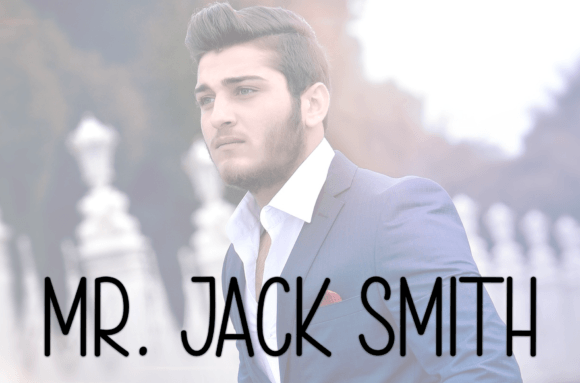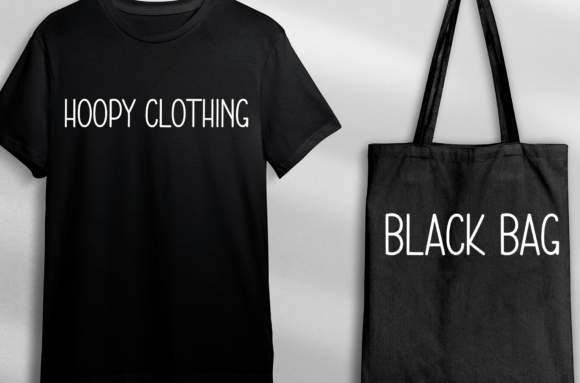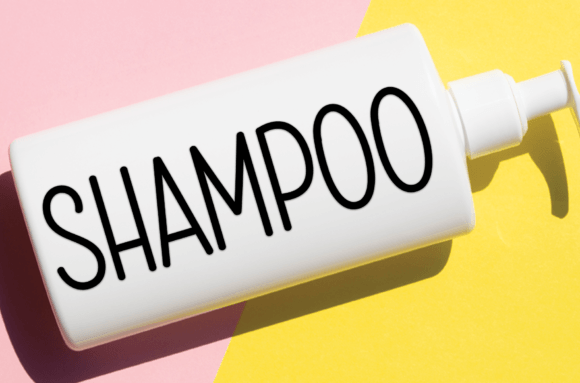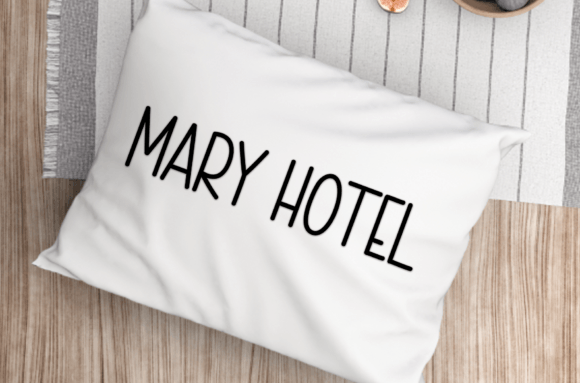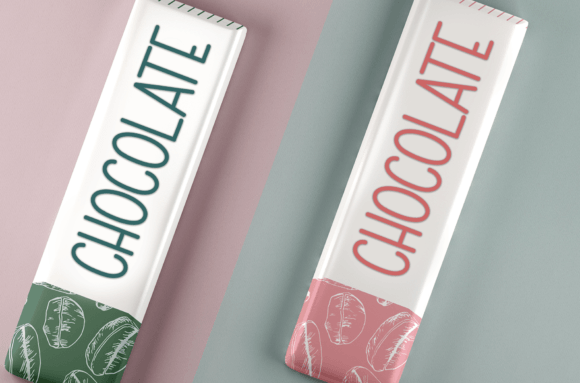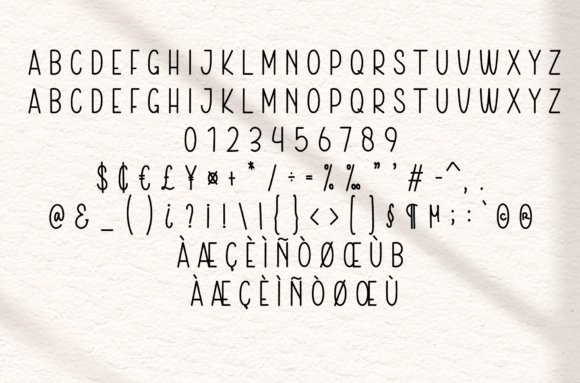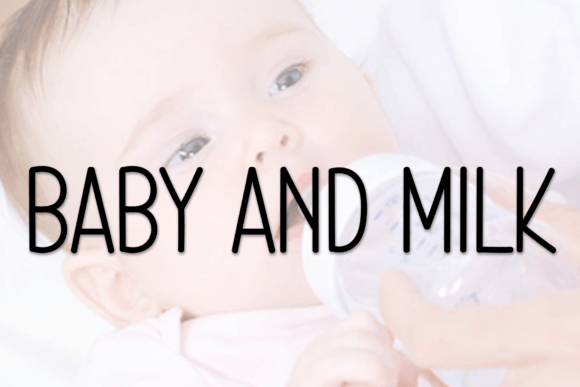
Baby and Milk Font: The Sweetest Addition to Your Design Arsenal
Are you a designer or crafter looking for a font that can add a touch of sweetness and friendliness to your designs? Look no further than the Baby and Milk Font! This adorable handwritten font is perfect for creating wedding invitations, cards, and other designs that require a fun and creative twist.
What Makes Baby and Milk Font So Special?
Baby and Milk is a sweet and friendly handwritten font that is sure to capture the hearts of your audience. Its cute and creative design makes it ideal for a wide range of design projects, from wedding invitations and cards to posters, flyers, and more. The font’s playful and whimsical feel is perfect for adding a personal touch to your designs and making them stand out from the crowd.
Characteristics of Baby and Milk Font
So, what makes Baby and Milk Font so unique? Here are some of its key characteristics:
- Handwritten design: Baby and Milk Font is a handwritten font, which gives it a personal and intimate feel.
- Sweet and friendly: The font’s design is sweet and friendly, making it perfect for creating designs that require a touch of warmth and personality.
- Cute and creative: The font’s cute and creative design makes it ideal for designs that require a fun and playful twist.
- Versatile: Baby and Milk Font is versatile and can be used for a wide range of design projects, from wedding invitations and cards to posters, flyers, and more.
Uses of Baby and Milk Font
Baby and Milk Font is a versatile font that can be used for a wide range of design projects. Here are some of the most popular uses of this font:
- Wedding invitations: The font’s sweet and friendly design makes it perfect for creating beautiful and unique wedding invitations.
- Cards: Baby and Milk Font is ideal for creating cards for special occasions, such as birthdays, anniversaries, and holidays.
- Posters and flyers: The font’s playful and whimsical feel makes it perfect for creating eye-catching posters and flyers.
- Social media graphics: Baby and Milk Font can be used to create engaging and shareable social media graphics.
Tips for Using Baby and Milk Font
Here are some tips for using Baby and Milk Font in your designs:
- Pair it with other fonts: Baby and Milk Font can be paired with other fonts to create a unique and interesting design.
- Use it for headings and titles: The font’s playful and whimsical feel makes it perfect for headings and titles.
- Add some color: Baby and Milk Font can be paired with a range of colors to create a design that is visually appealing.
Baby and Milk Font is a sweet and friendly handwritten font that is perfect for designers and crafters looking to add a touch of sweetness and friendliness to their designs. Its cute and creative design makes it ideal for a wide range of design projects, from wedding invitations and cards to posters, flyers, and more. With its versatile design and playful feel, Baby and Milk Font is sure to become a favorite in your design arsenal.